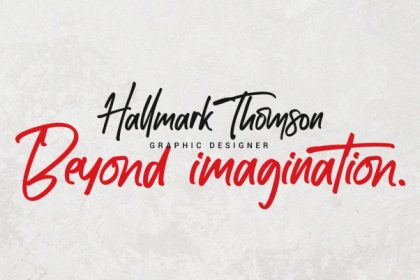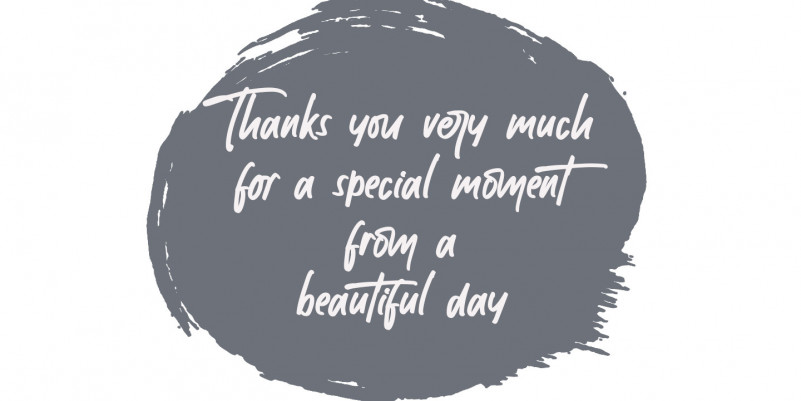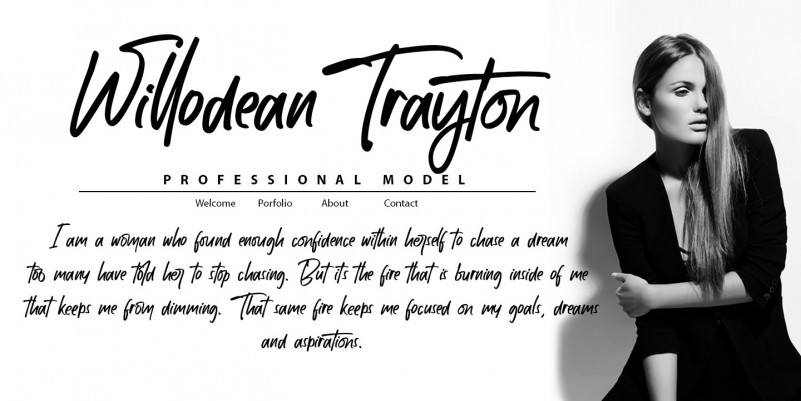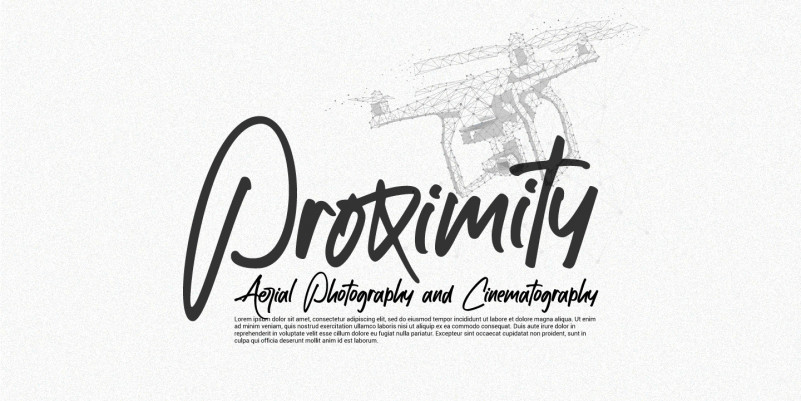
Brotherhood Font
The current trend is social media, friendship connection applications and personal web portfolios. This media is used to tell about existence, most people like to upload photos on social media networks, even for personal web portfolios, sometimes people prefer to see the side of daily activities rather than products which are offered.
Photos are visual responses, and there are many stories that can be told from a photo. But it will look more interesting if it is added with captions. The very appropriate caption is a text in handwriting. This is what inspired us to create attractive handwriting for social media and networking.